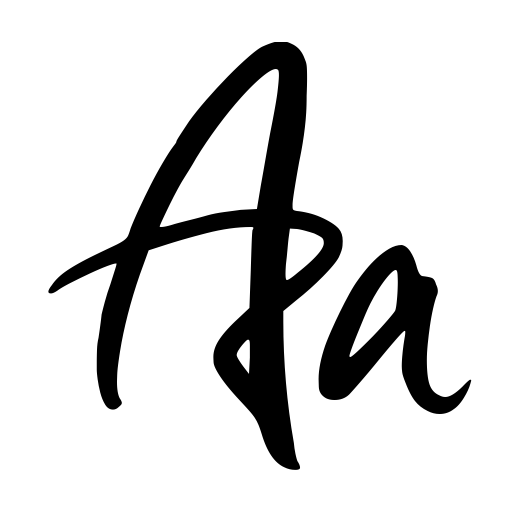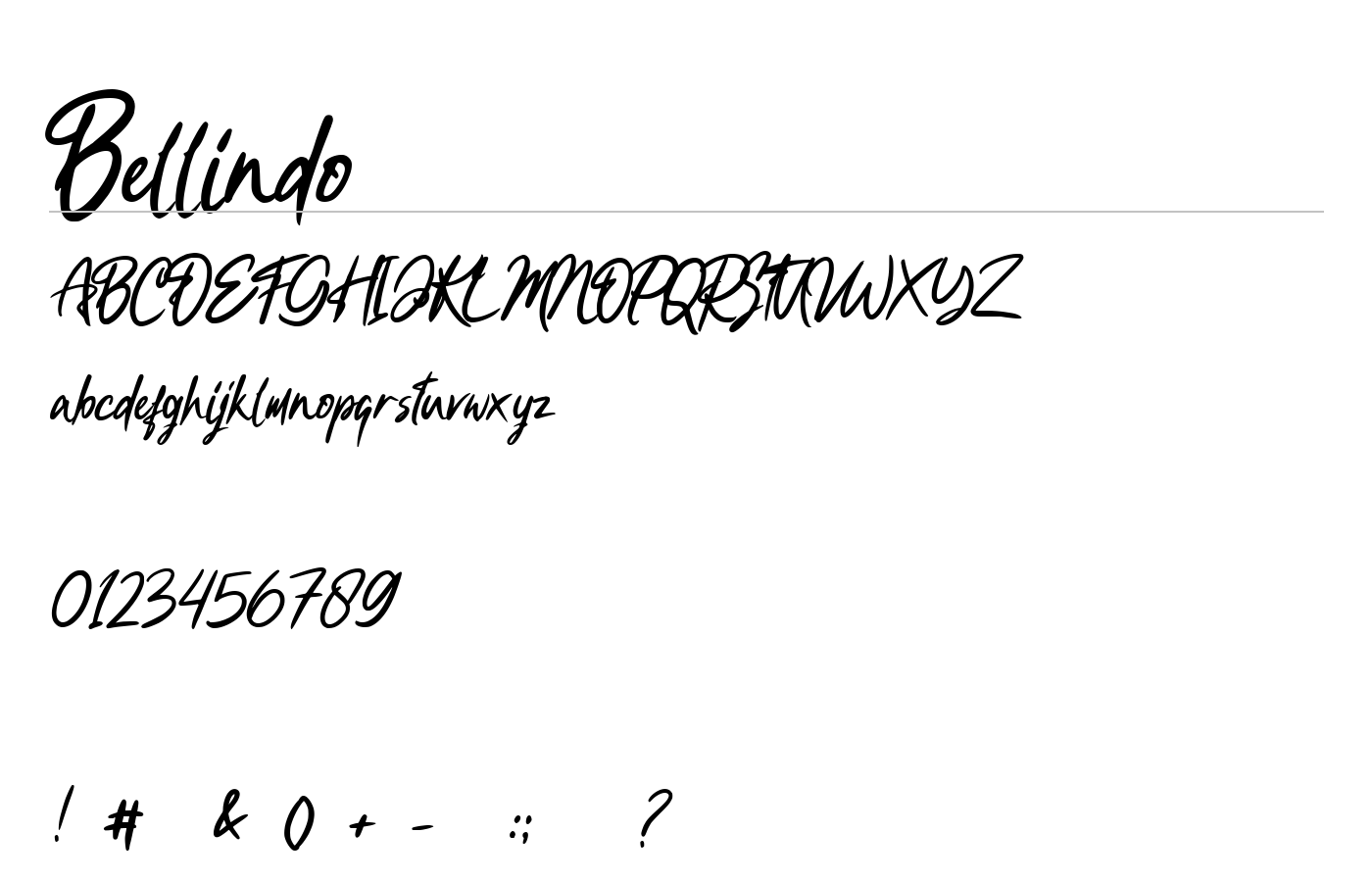
Bellindo is a lively, handwritten script font with an informal yet elegant feel, featuring flowing, connected letters that mimic natural handwriting. Its medium weight and dynamic stroke variations create a sense of movement and personality, making it ideal for creative branding, invitations, and stylish logos that want to convey warmth and approachability. This font works well in settings where a personal touch and expressive character are desired without sacrificing readability.
Bellindo Font
About Bellindo Font